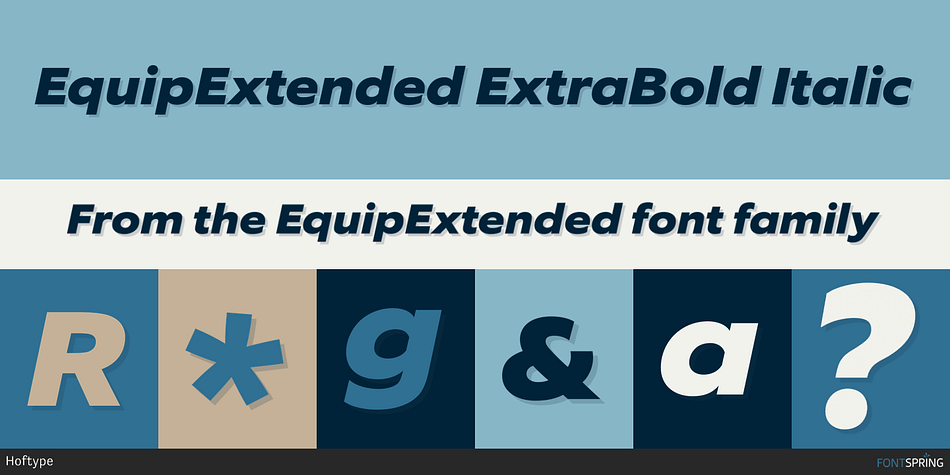
EquipExtended ExtraBold Italic
EquipExtended is a sans serif font family. This typeface has sixteen styles and was published by Hoftype.
EquipExtended is the next complement for the Equip family and with its 16 fonts together with EquipCondensed, it extends the family to 48 styles. While developed from the same basic shape as the rest of the Equip family, it has its own particular friendly and warm appearance. With its wide and open proportions, EquipExtended makes a grand entrance for your headlines, subheads and even for the body of text. Try it out, the light style is free.
EquipExtended is very well suited for ambitious typography.
The EquipExtended family comes in OpenType format with extended language support. All weights contain semi-ligatures (design optimized single characters), proportional lining figures, tabular lining figures, proportional old style figures, lining old style figures, matching currency symbols, fraction- and scientific numerals and arrows.
Style ExtraBold Italic